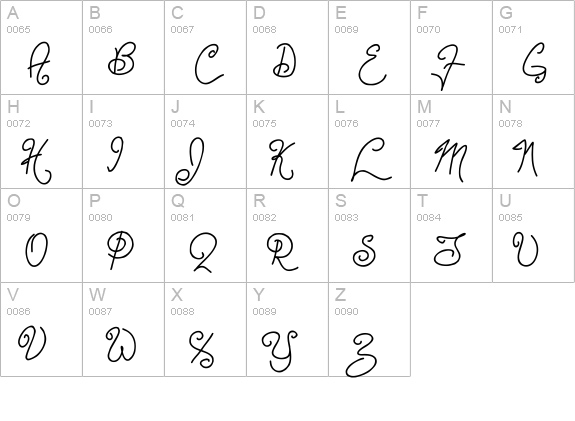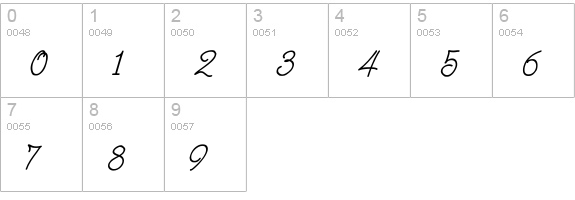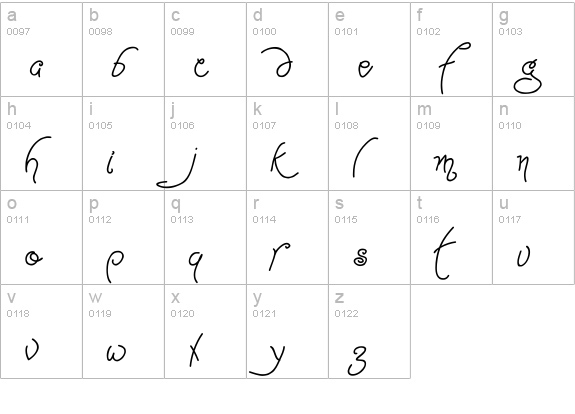
Point-Dexter Font Details
Introducing Point-Dexter font, a stylish and versatile typeface that exudes sophistication and elegance. With its unique blend of modern and classic elements, Point-Dexter is perfect for a wide range of design projects, from branding and marketing materials to invitations and social media graphics. What sets Point-Dexter apart is its clean lines, sleek curves, and sharp angles that create a sense of refinement and professionalism. This font is sure to make your text stand out and leave a lasting impression on your audience. And the best part? Point-Dexter is available for free download at FontsMarket.com, making it accessible to all designers and creatives looking to elevate their projects. Don't miss out on this opportunity to enhance your designs with the timeless beauty of Point-Dexter font. Download it today and let your creativity shine!